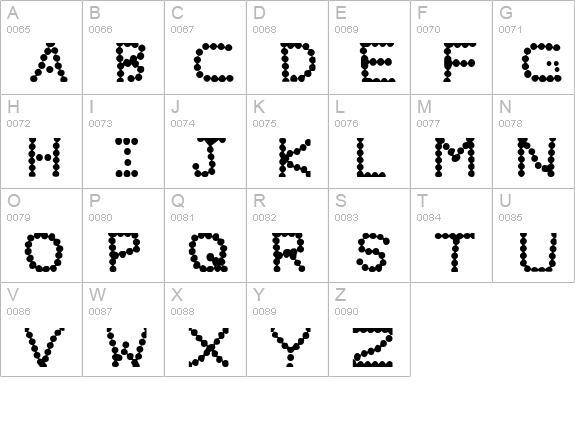
Introducing Beady font, a stylish and modern typeface that is sure to catch the eye and elevate your design projects to the next level. With its unique beaded design, this font is perfect for adding a touch of creativity and sophistication to any text. What's even better is that Beady font is available for free download at FontsMarket.com. That's right, you can get your hands on this amazing font without spending a dime. So why wait? Download Beady font today and start creating stunning designs that will leave a lasting impression.